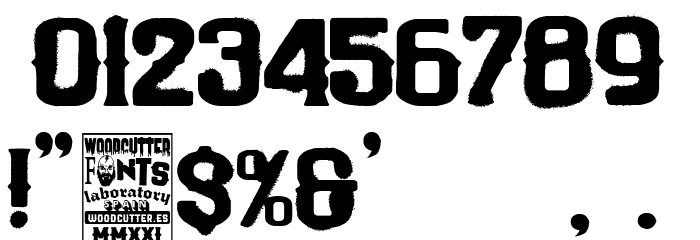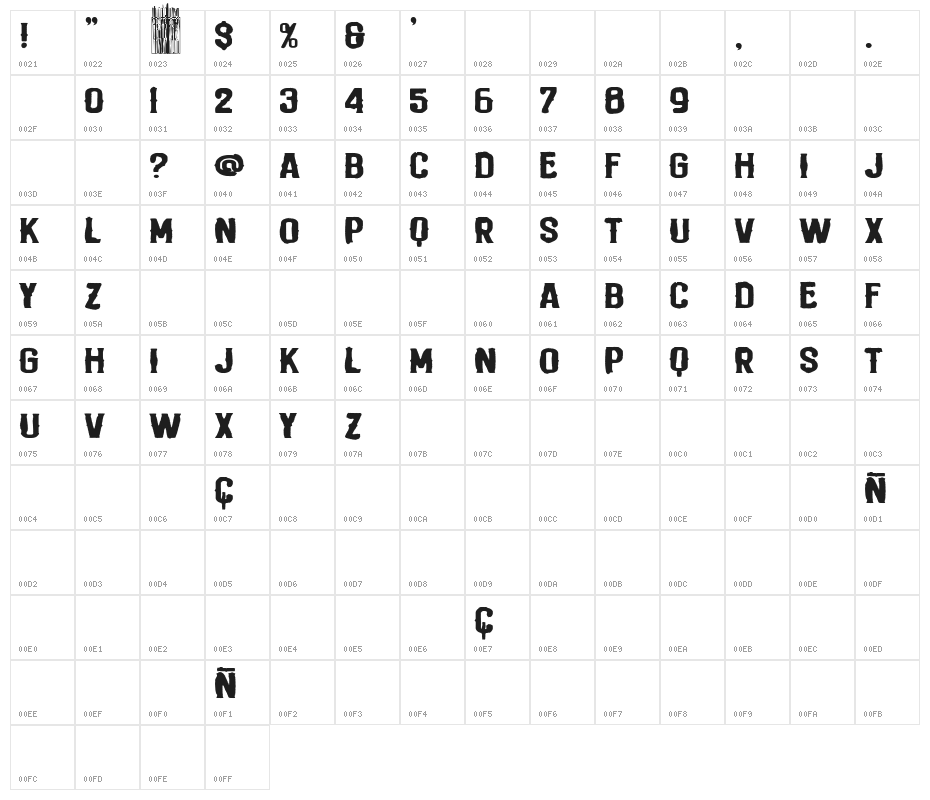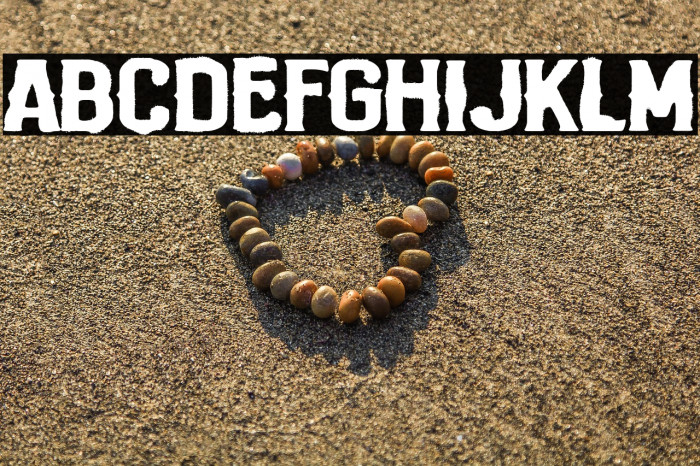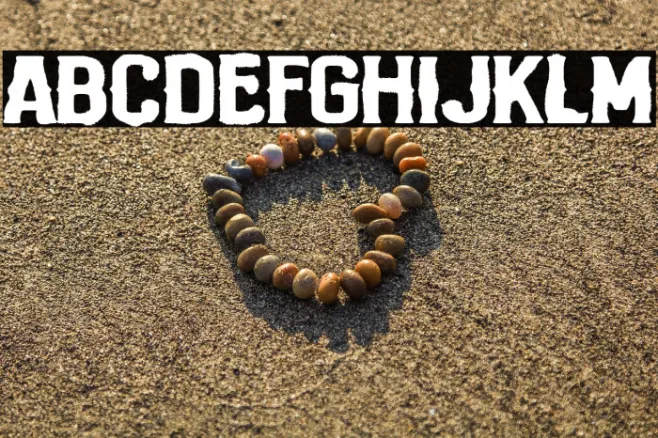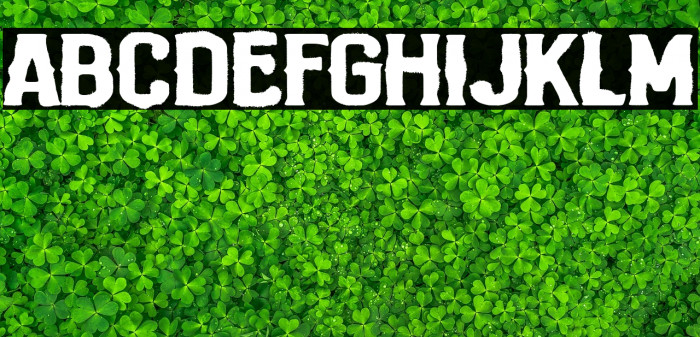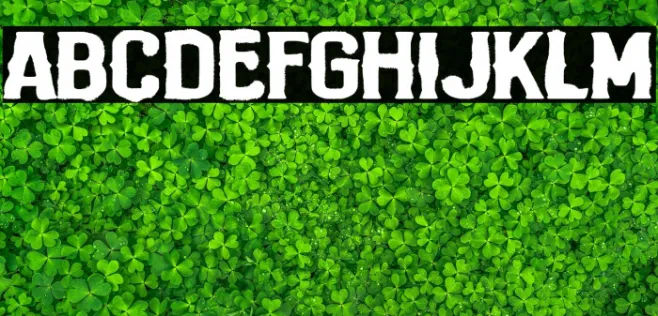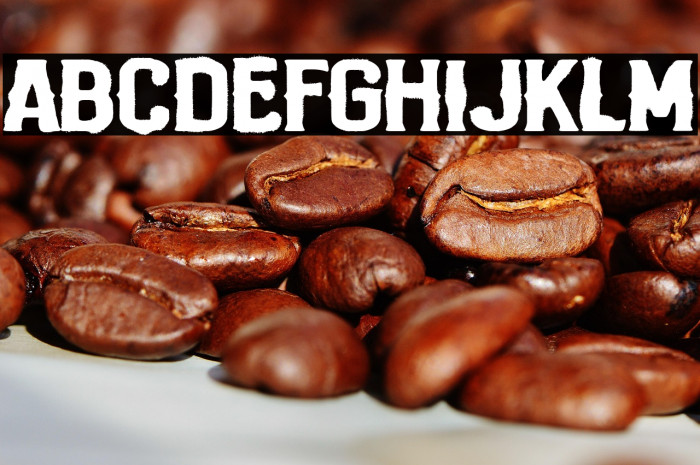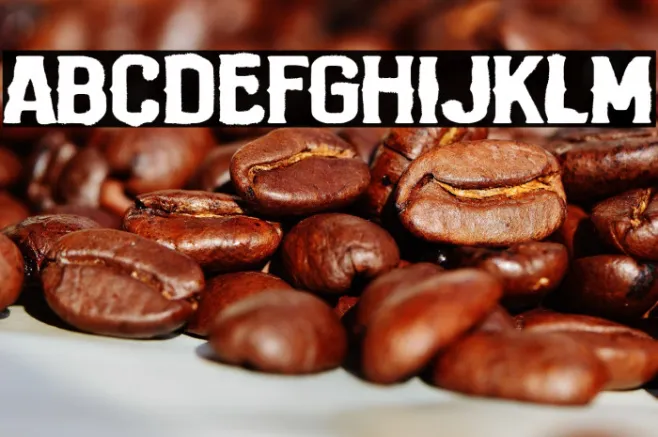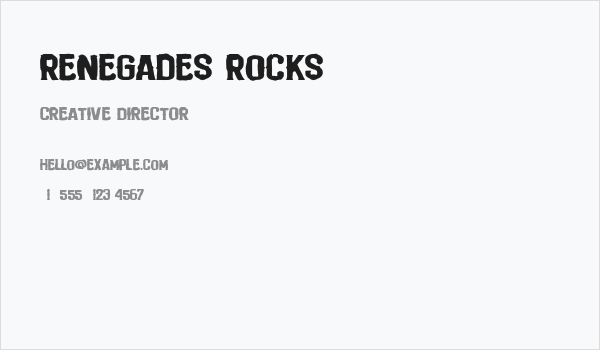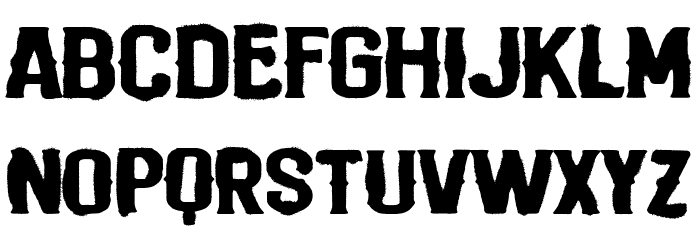
Renegades Rocks Font
Renegades Rocks Description
This font features a bold, rugged style with a distressed texture that gives it a gritty, rebellious feel. The characters are thick and blocky, with uneven edges that suggest a hand-crafted or vintage aesthetic. The uppercase and lowercase letters maintain a consistent weight, while the numbers and special characters follow the same bold and textured design. The font's unique appearance makes it stand out, ideal for projects that require a strong, impactful visual presence. Its rough edges and bold strokes convey a sense of strength and individuality.
| Proposed Projects | Ideal for posters, album covers, branding for edgy or alternative products, and any design needing a bold, rebellious touch. |